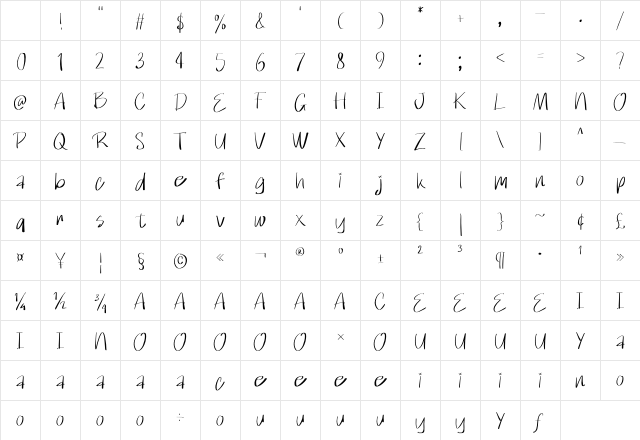
Complete Broken Junior Regular glyph index. Displaying only characters natively supported by Broken Junior Regular font.
Broken Junior is a composed and adaptable typeface that performs quietly and consistently across a wide range of design contexts.